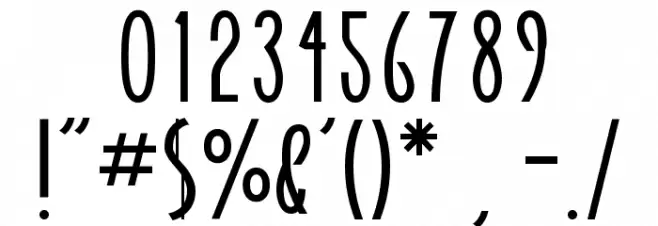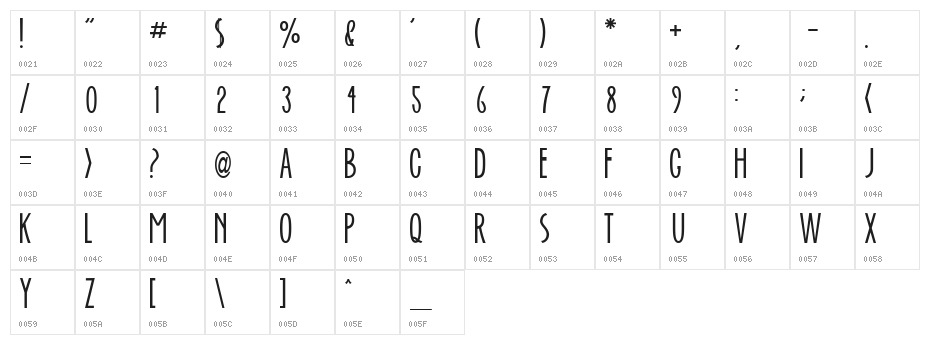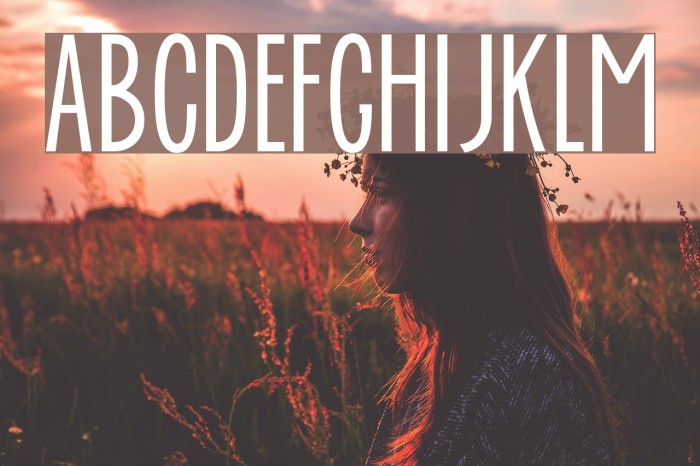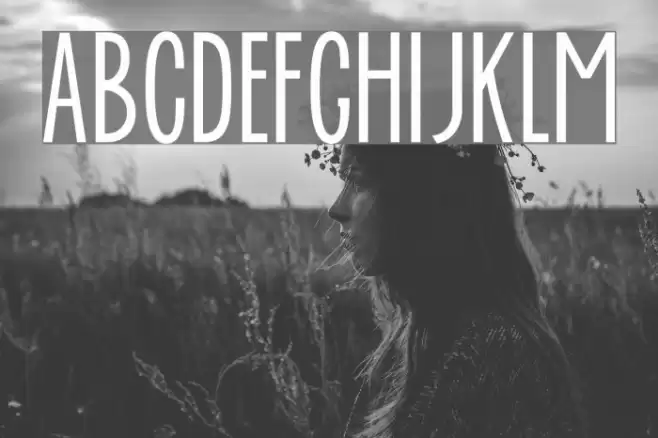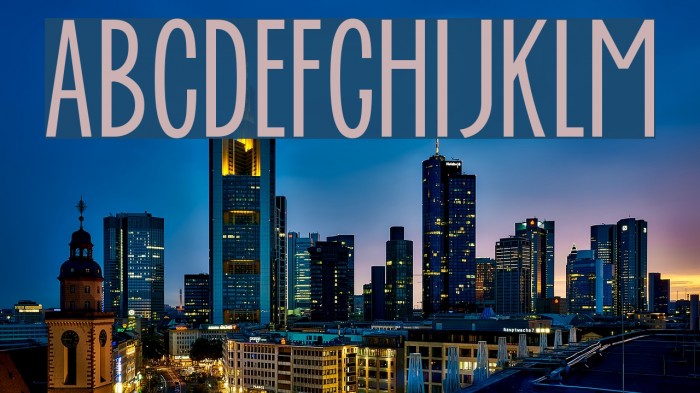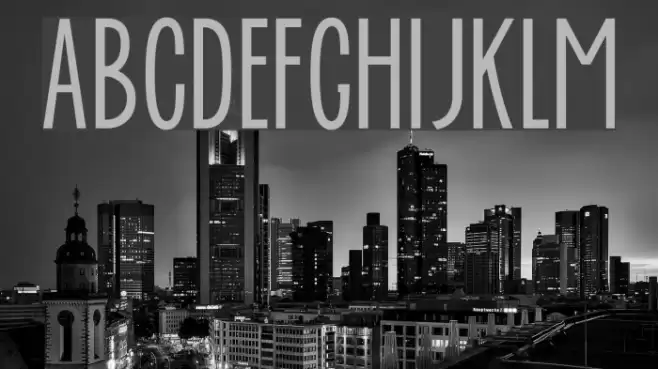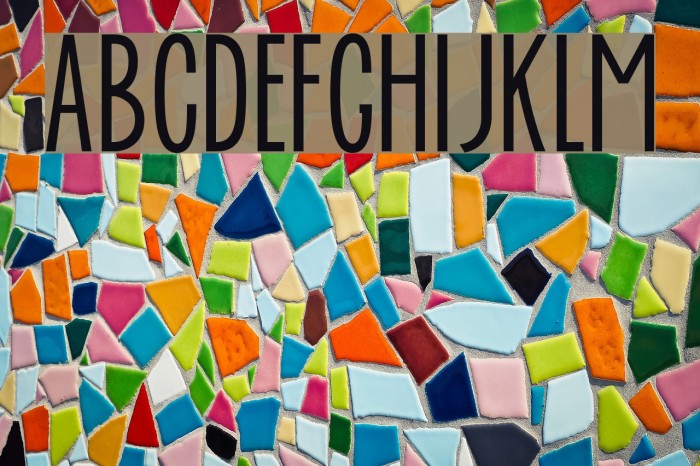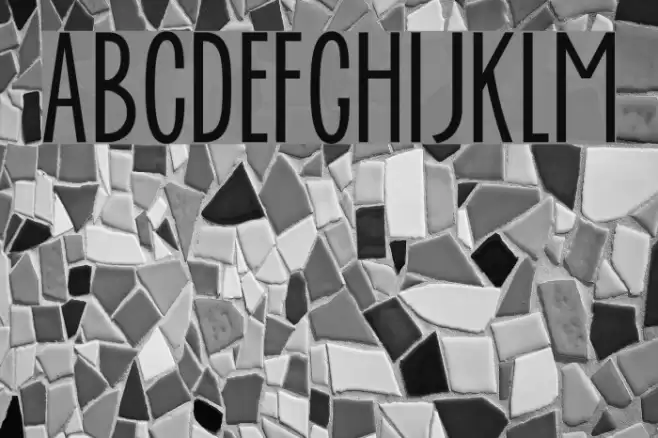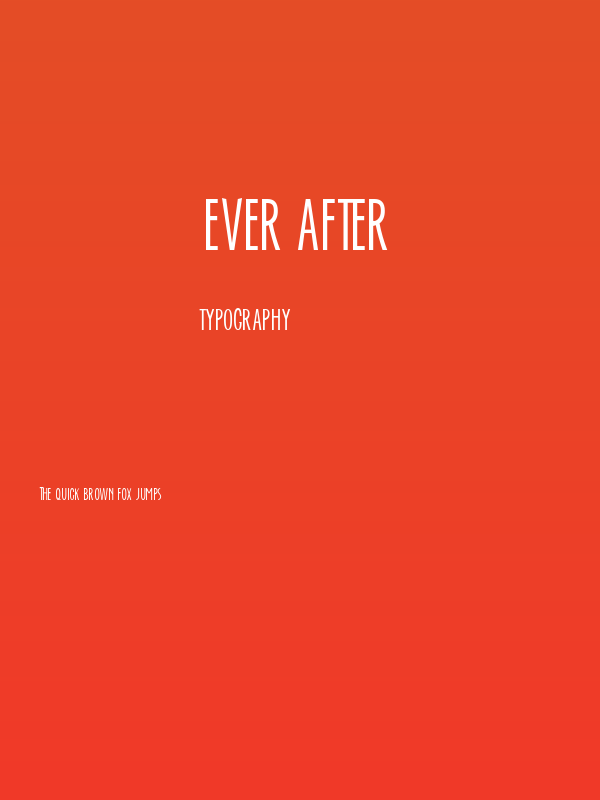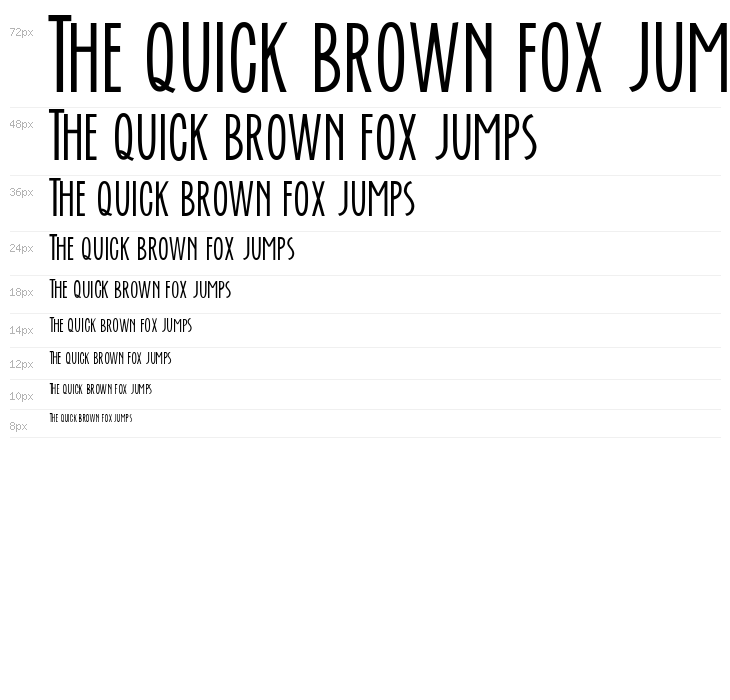
Ever After Font
Ever After Description
This font features tall, slender characters with a clean and modern aesthetic. The uppercase letters are particularly elongated, giving a sense of elegance and sophistication. The lowercase letters maintain a similar style, ensuring consistency across text. Numbers are clear and easy to read, with a uniform height that matches the uppercase letters. Special characters are designed to complement the overall style, with a focus on simplicity and readability. The font's vertical emphasis and narrow width make it suitable for creating a striking visual impact.